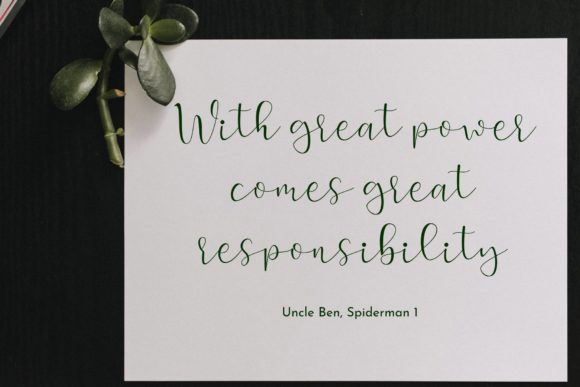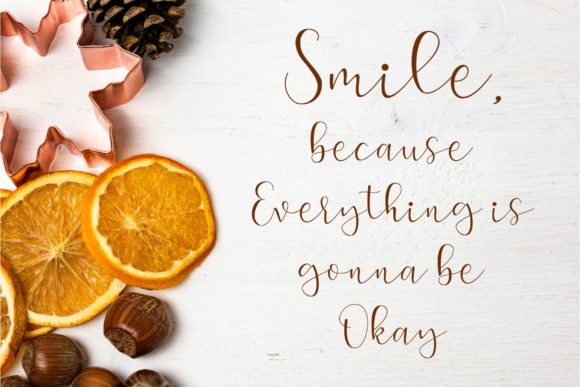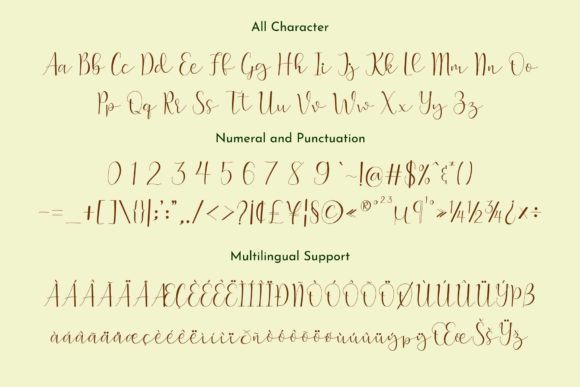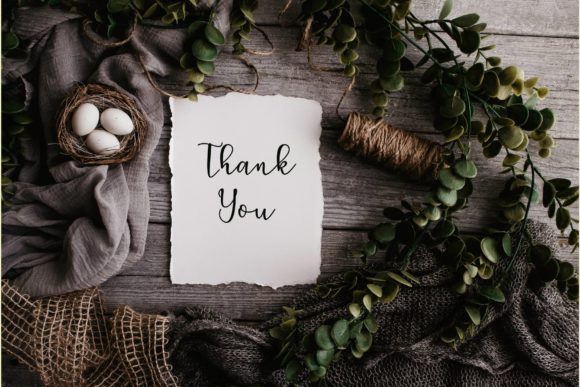
Introduction to Positive Attitude Font
Positive Attitude is a beautiful script with bouncing characters and an incredibly sweet and playful feel.
Use it to take any crafting project to the next level .
Key Features of Positive Attitude Font